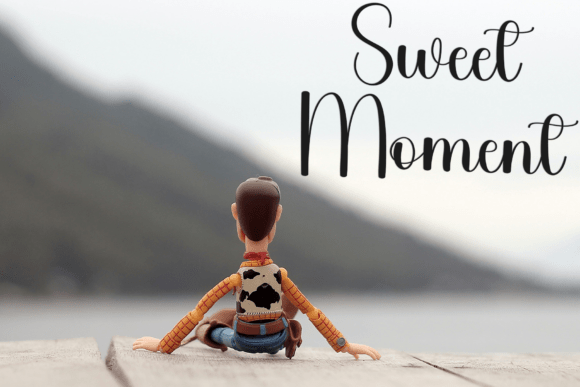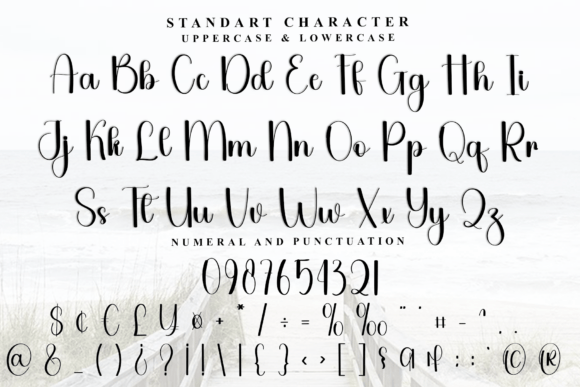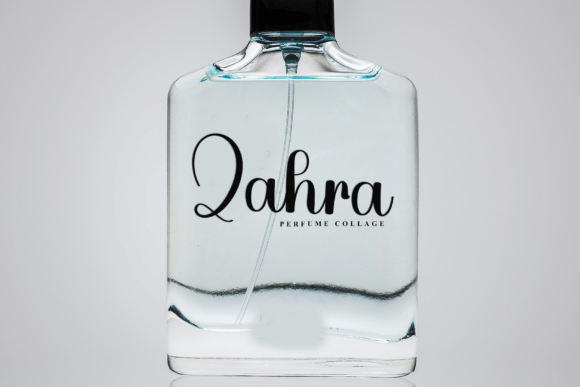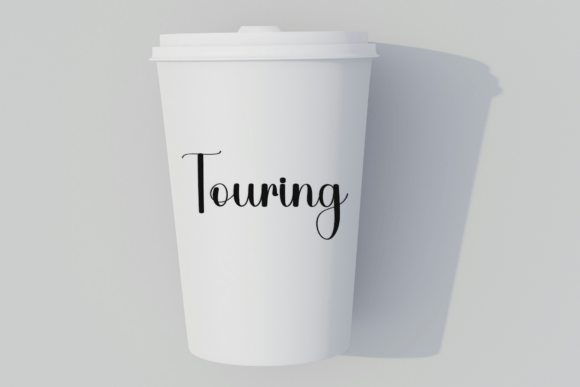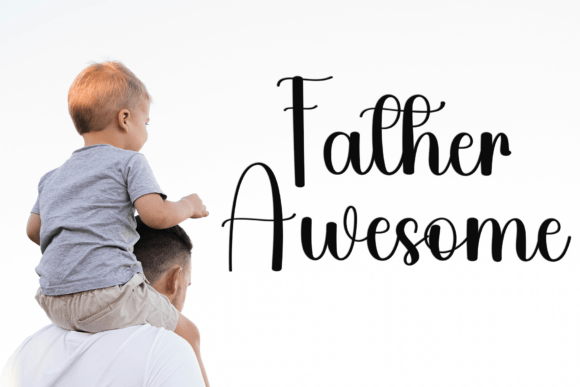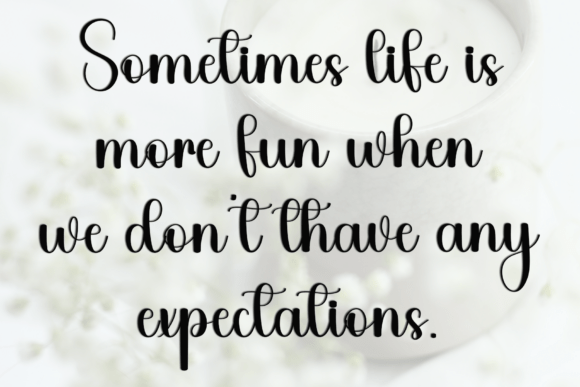
Have you ever been rummaging through your design files, searching for the perfect font to give your project that extra oomph? You know, that moment when everything comes together, and your design just clicks? That’s exactly what we’re about to explore with the Beauty Saturday Font.
Designed with a soft, unique touch, the Beauty Saturday Font is a beautiful and eye-catching addition to any design project. Its distinctive strokes give it a special character, making it meaningful and versatile for future use. Whether you’re a seasoned designer or just starting out, this font is sure to enhance your designs and make them appealing to a wide range of audiences.
Beauty Saturday Font Key Features
- Font Family: The Beauty Saturday Font is a unique, hand-drawn script font designed for creative and elegant typography.
- Character Set: The font includes a wide range of characters, including uppercase and lowercase letters, numbers, punctuation, and special characters.
- Unique Characteristics: The Beauty Saturday Font features a beautiful, flowing design with subtle imperfections, giving it a handcrafted feel.
Beauty Saturday Font Review
As a designer, I was excited to dive into the Beauty Saturday Font and see what it had to offer. Here’s my honest review:
- The font’s elegant and feminine design makes it perfect for beauty and lifestyle brands.
- The bold and italic variations add a nice touch of sophistication and versatility.
- The font is highly legible, even at smaller font sizes, making it suitable for various digital applications.
- The font may be too ornate for some designers, who prefer a more minimalist approach.
- The bold variation can be a bit too loud, and may not work well in all design contexts.
- The font lacks a condensed version, which could be useful for narrower layouts.
Overall, I think the Beauty Saturday Font is a beautiful and well-designed typeface. While it may have some limitations, its elegance and versatility make it a great choice for designers working on beauty and lifestyle projects. With a bit of careful consideration, this font can be a valuable addition to any designer’s toolkit.
The Beauty Saturday Font is perfect for:
- Beauty and wellness branding
- Spa and salon marketing materials
- Product packaging and labels
- Editorial and blog content
For optimal results, use the Beauty Saturday Font in conjunction with pastel colors and delicate illustrations to create a soft, feminine aesthetic.
Compared to Beauty Saturday Font, Great Vibes has a more refined and polished look, making it suitable for high-end designs. While Beauty Saturday Font has a more playful feel, Great Vibes is more sophisticated.
Compared to Beauty Saturday Font, Pacifico has a more straightforward and clean design, making it easier to read. While Beauty Saturday Font has a more whimsical feel, Pacifico is more professional.